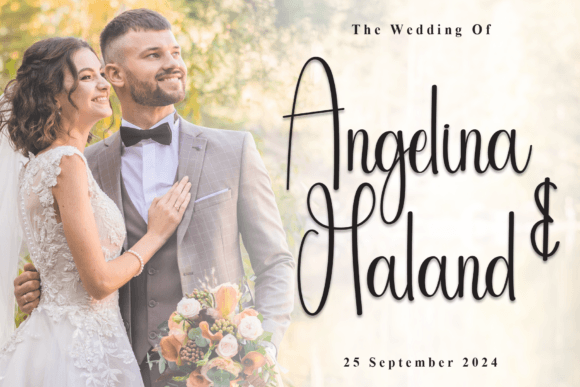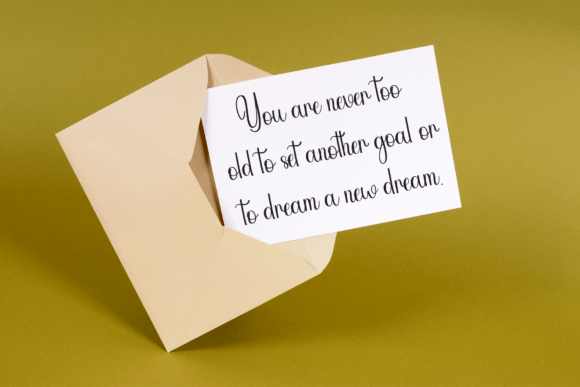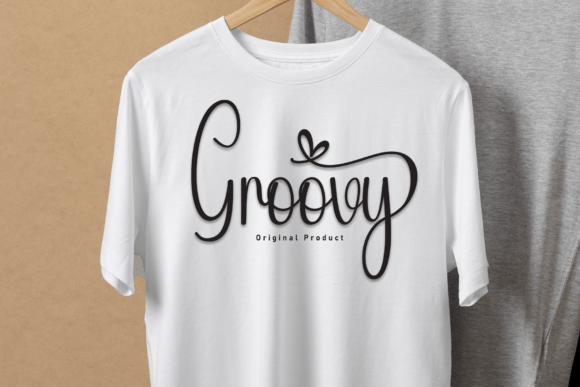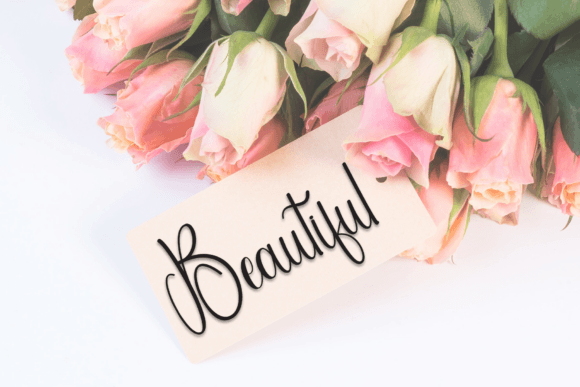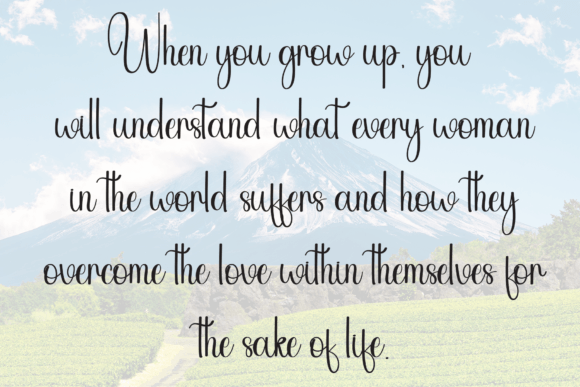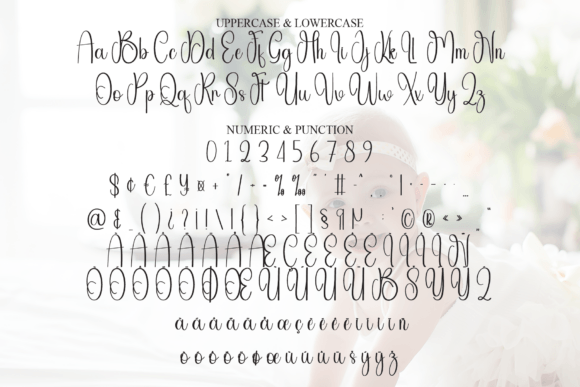
The Perfect Font for Whimsical Designs
Who hasn’t had that moment when inspiration strikes and creativity flows freely? For designers, it’s that instant when a perfect font comes along and elevates a project from ordinary to extraordinary. And that’s exactly what happens when you meet the Baby Cataline Font. This enchanting handwritten display font is a masterclass in infusing an air of fun and friendliness into your designs.
As a versatile font, Baby Cataline Font is perfect for crafting whimsical wedding invitations, delightful cards, and any design that could use a sprinkle of joyful charm. Its charming allure is unmatched, making it a valuable addition to any designer’s toolkit. Whether you’re looking to add a touch of whimsy or simply want to make your designs stand out, this font is sure to tickle your creativity and leave a lasting impression.
Baby Cataline Font Key Features
- Font Family: Baby Cataline Font is a unique, hand-drawn script font.
- Unique Characteristics: Features a playful, whimsical feel with subtle irregularities and flourishes, perfect for adding a touch of personality to designs.
Baby Cataline Font Review
I’ve had the chance to work with the Baby Cataline Font, and here’s my honest take on it.
The Baby Cataline Font has a certain charm to it. It’s a playful, handwritten font that’s perfect for adding a touch of whimsy to your designs. I’ve used it for creating invitations, social media graphics, and even logos, and it always adds a bit of personality to the project.
- Unique and eye-catching: Baby Cataline Font is sure to grab attention and stand out in a crowded design space.
- Easy to read: Despite its handwritten feel, the font is surprisingly easy to read, even in smaller sizes.
While I love the Baby Cataline Font, there are a few limitations to consider.
- Not ideal for body text: Due to its handwritten nature, Baby Cataline Font can be difficult to read in large blocks of text.
- Limited character set: The font may not have all the characters you need, which can be a problem if you’re working on a project that requires specific symbols or accents.
Overall, I think the Baby Cataline Font is a great choice for designers who want to add a bit of personality to their work. Just be mindful of its limitations, and use it sparingly in situations where it will really shine.
The Baby Cataline Font is ideal for use in baby-related designs, such as baby shower invitations, nursery decor, and children’s products.
To get the most out of this font, use it in conjunction with other baby-themed graphics and elements, such as baby blocks, onesies, and toys.